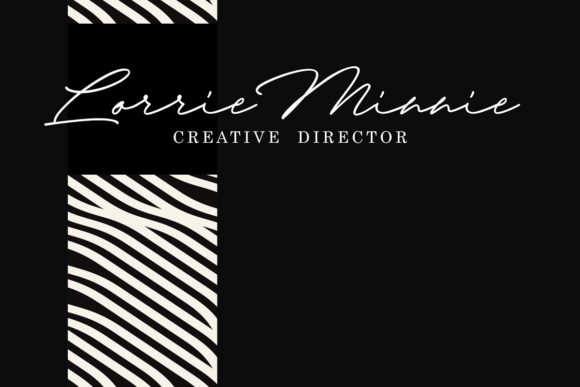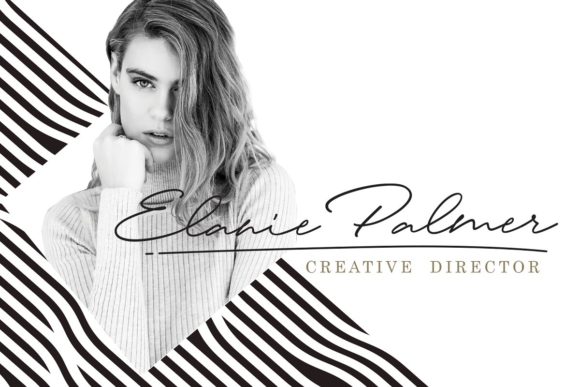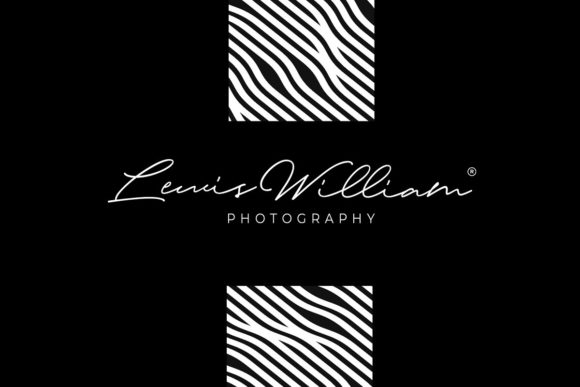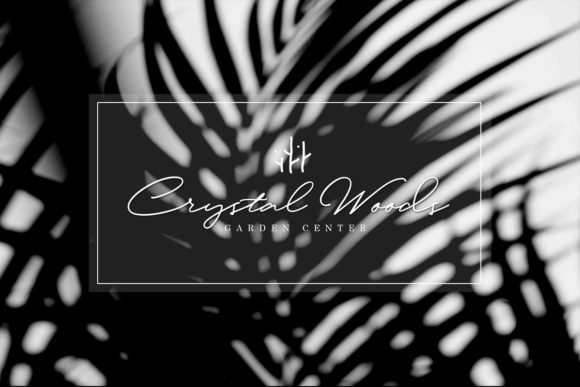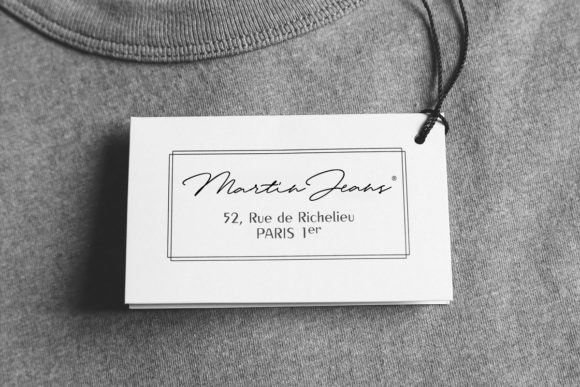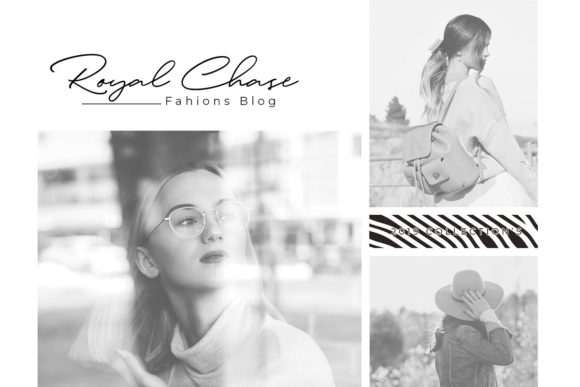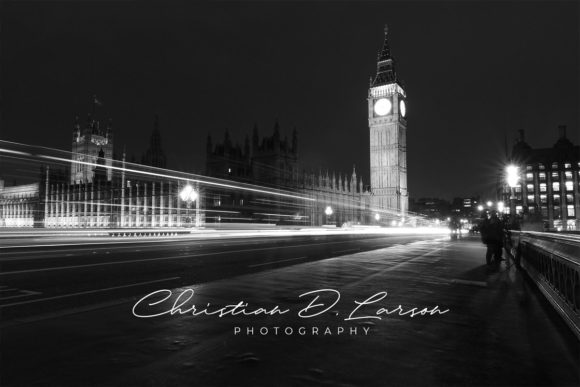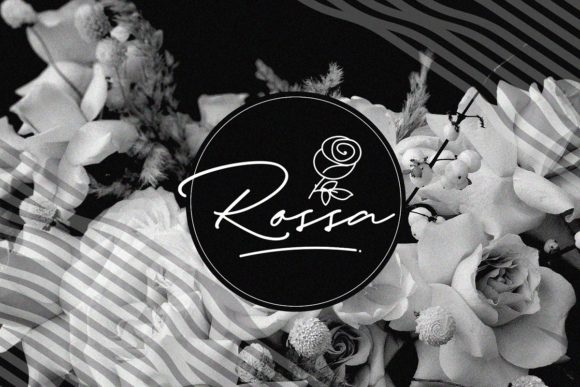
Mark Rasford Font
About Mark Rasford Font
Mark Rasford is an inspiring and authentic handwritten font with a unique feel. It will put a contemporary twist on any design project.